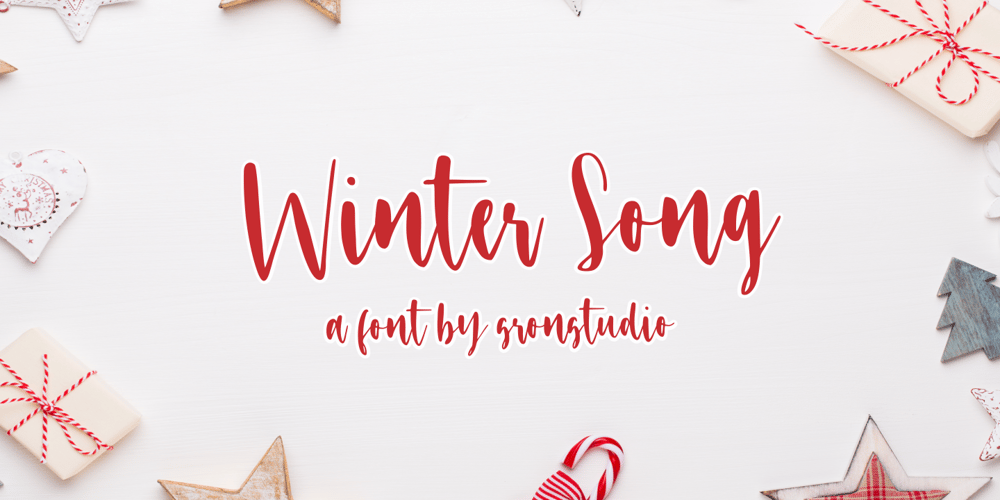
Winter Song Font Family was designed by Muhamad Yusron Billah and published by Sronstudio. Winter Song contains 1 styles and family package options. Winter Song is a natural calligraphy font perfect for crafting, branding, invitation, stationery, wedding designs, social media posts, advertisements, product packaging, product designs, label, photography, watermark, special events, or anything.Winter Song comes with full set of uppercase and lowercase letters, swash alternates, ligatures,multilingual symbols, numerals and punctuation.